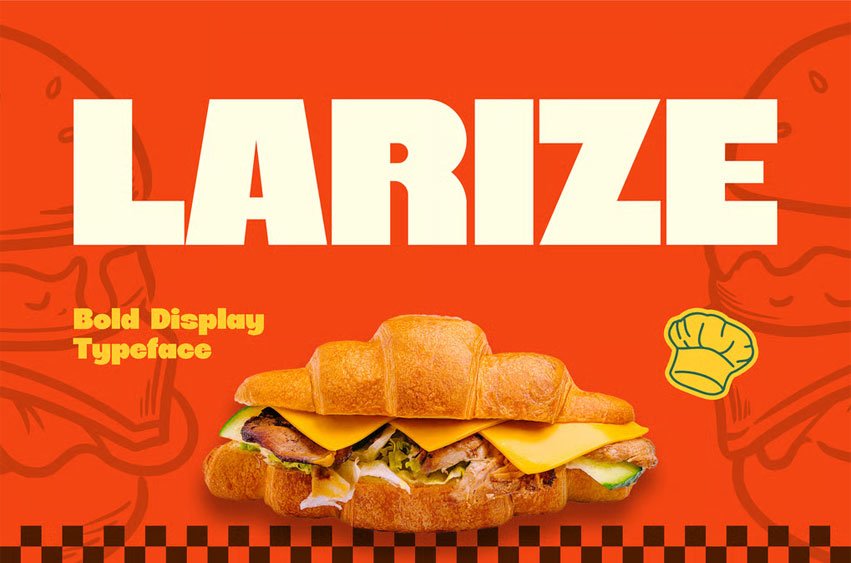
Larize Font is a bold display typeface designed for creators who need a long-tail visual solution for food branding and fast-paced marketing, combining thick geometric strokes with a confident, blocky structure that instantly commands attention. Its letterforms feature tight spacing, heavy proportions, and clean terminals, creating a visual voice that feels expressive, energetic, and delightfully punchy.
Crafted for the world of restaurants, cafés, food trucks, and digital menus, LARIZE delivers a lively personality that blends playful shapes with high readability, making it ideal for branding, packaging, poster ads, and social media promotions.
LARIZE thrives in environments where visuals must speak quickly and clearly. Its bold silhouette and tasty, appetizing vibe make it perfect for food posters, delivery adverts, editorial layouts, promo banners, and mobile app menus. Designers can use it to create impactful headlines that feel approachable yet strong—ideal for boosting conversions in high-energy campaigns like hot deals, combo menus, lunch sets, or product launches.
Whether you’re shaping a modern café identity, building a restaurant social feed, or designing packaging with personality, LARIZE gives your message immediate visual authority.
Key Features : • Bold Display Character Thick strokes and high-impact forms help your design stand out instantly.
• Food-Friendly Visual Tone Perfect for menus, café branding, product labels, and social promotions.
• Strong Hierarchy Builder Creates striking headlines, section titles, and callouts without needing extra effects.
• Versatile in Marketing Contexts Works beautifully across posters, ads, packaging, signage, and digital interfaces.
• Clear, Consistent Structure Geometric proportions and clean terminals ensure excellent readability at any size.